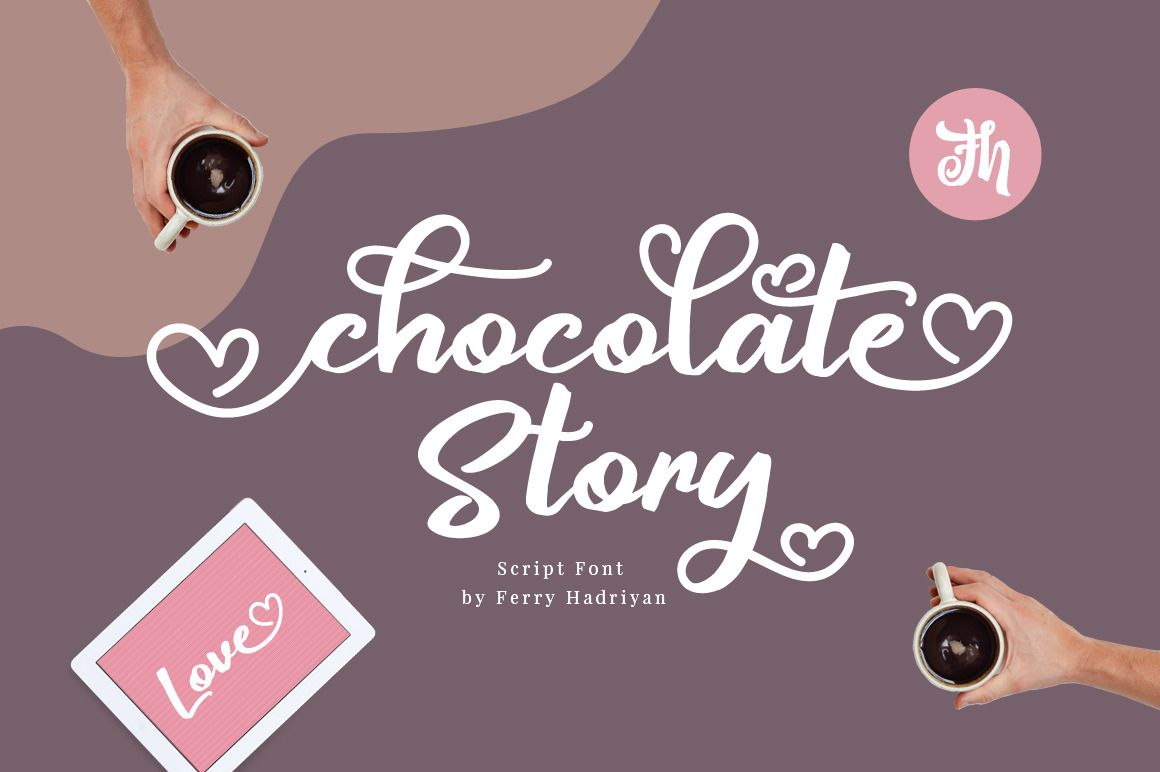
Chocolate Story - Script Font
Chocolate Story is script font with handlettering love chocolate valentine brush style, with opentype feature include of the font. Suitable for design, element design, wedding, event, t-shirt, logo, badges, sticker, and awesome work, etc...
All Standard Character, Symbol, Multilanguage, Ligature, Stylistic Set, and Swashes.
Unique style fonts